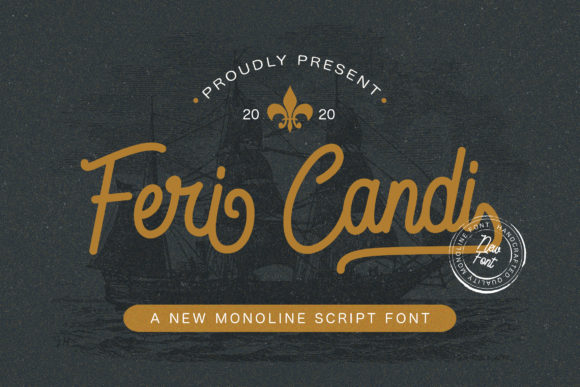
Step into the world of Feri Candi, a script font that dances with elegance and grace. Immerse yourself in the beauty of its handwritten strokes, each one a testament to the artistry that lies within. With Feri Candi, your designs will blossom into masterpieces, capturing the essence of creativity and leaving a lasting impression.
Unleash your inner artist and explore the endless possibilities that Feri Candi holds. From personal branding to wedding invitations, from social media posts to heartfelt letters, this font will elevate your words, adding a touch of charm and sophistication. Its delicate curves and whimsical flourishes will captivate your audience, leaving them spellbound by the beauty of your creations.
With Feri Candi, you'll find a font that's not just versatile, but truly transformative. It has the power to transform ordinary words into works of art, to turn simple messages into heartfelt expressions. Its unique style will make your designs stand out from the crowd, ensuring that your message is seen, appreciated, and remembered.
Embrace the artistry of Feri Candi and let your creativity soar. Experience the joy of creating designs that are not just visually appealing, but also deeply meaningful. With this font by your side, you'll discover a new world of design possibilities, where imagination knows no bounds.